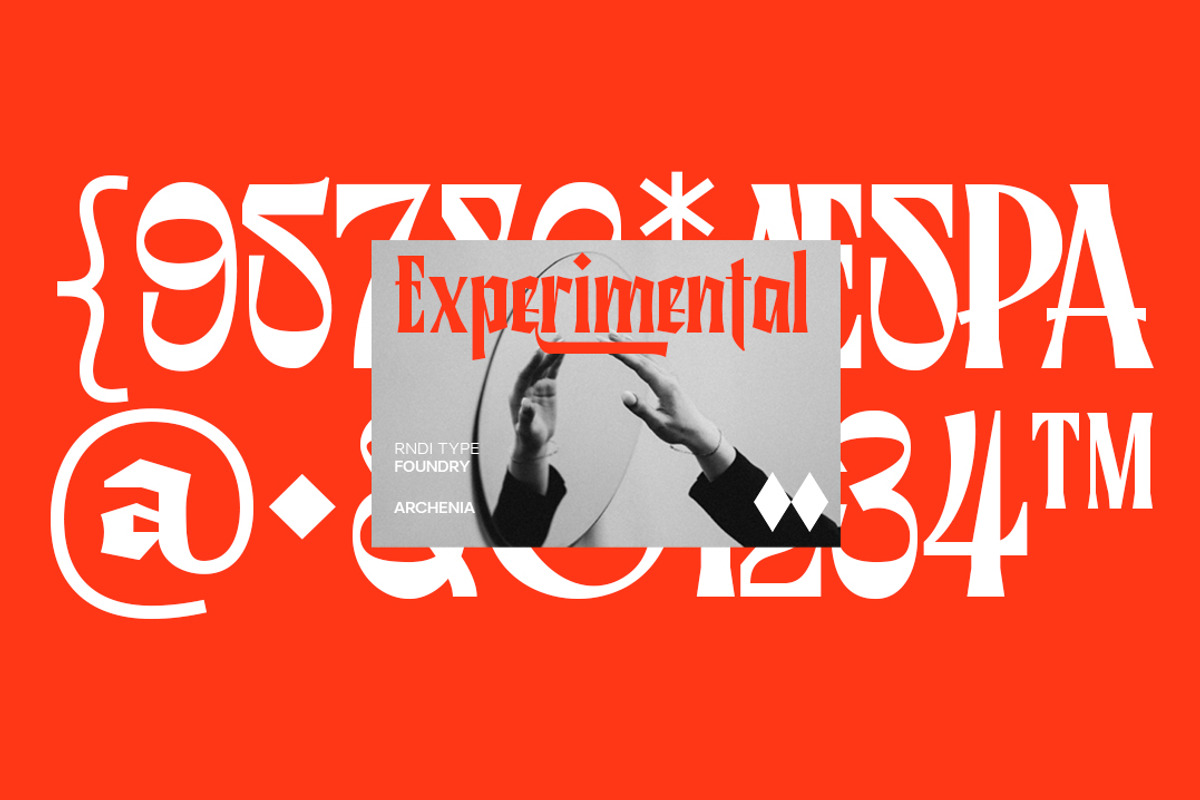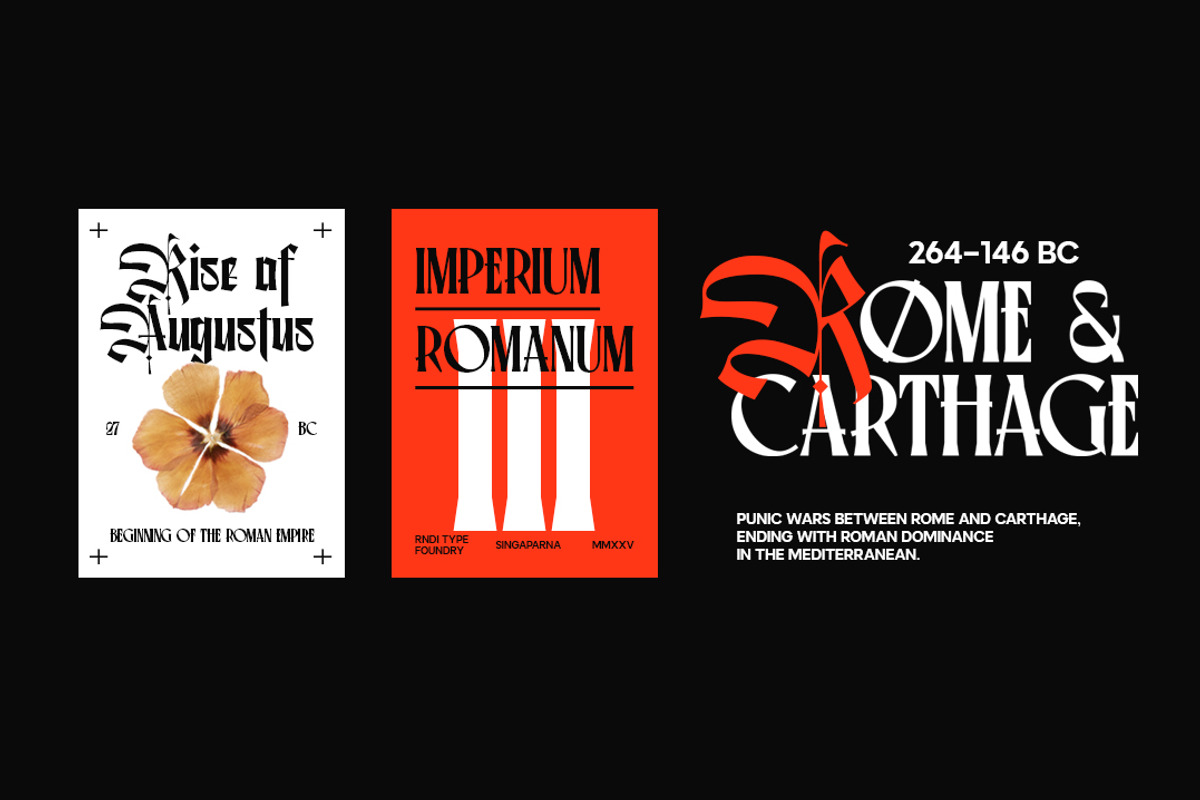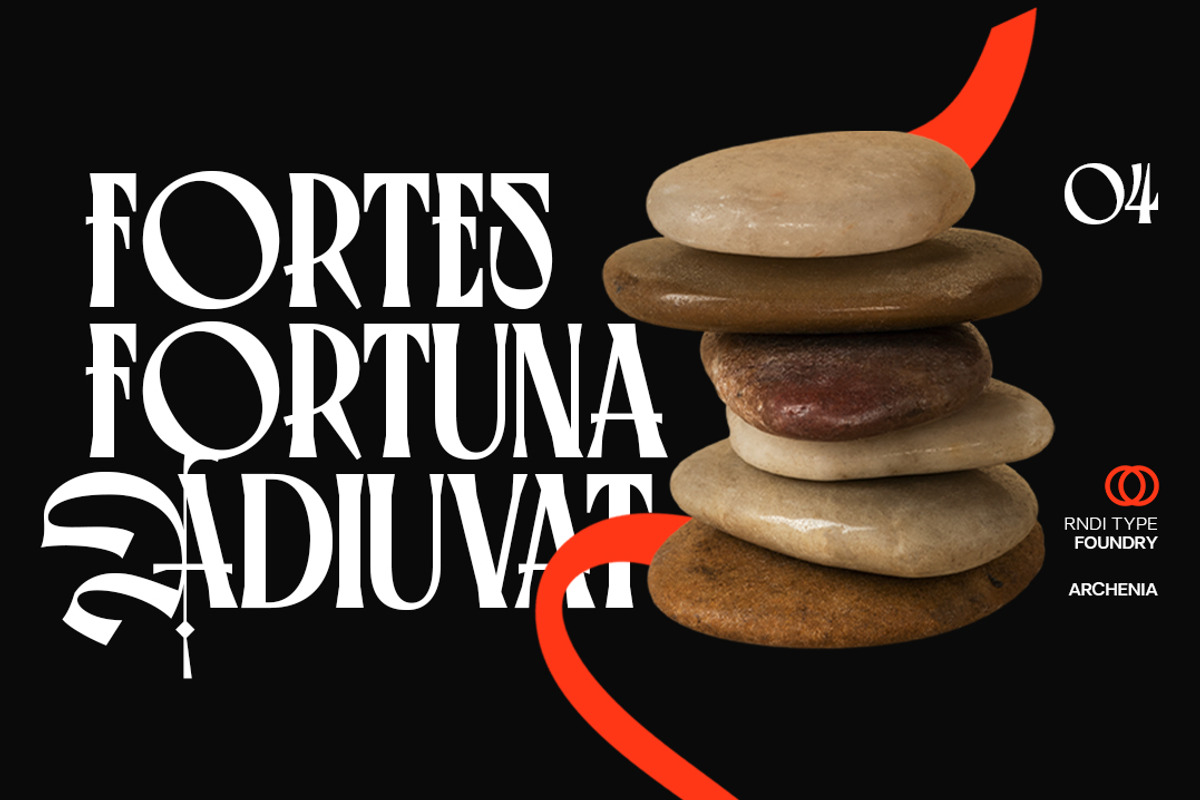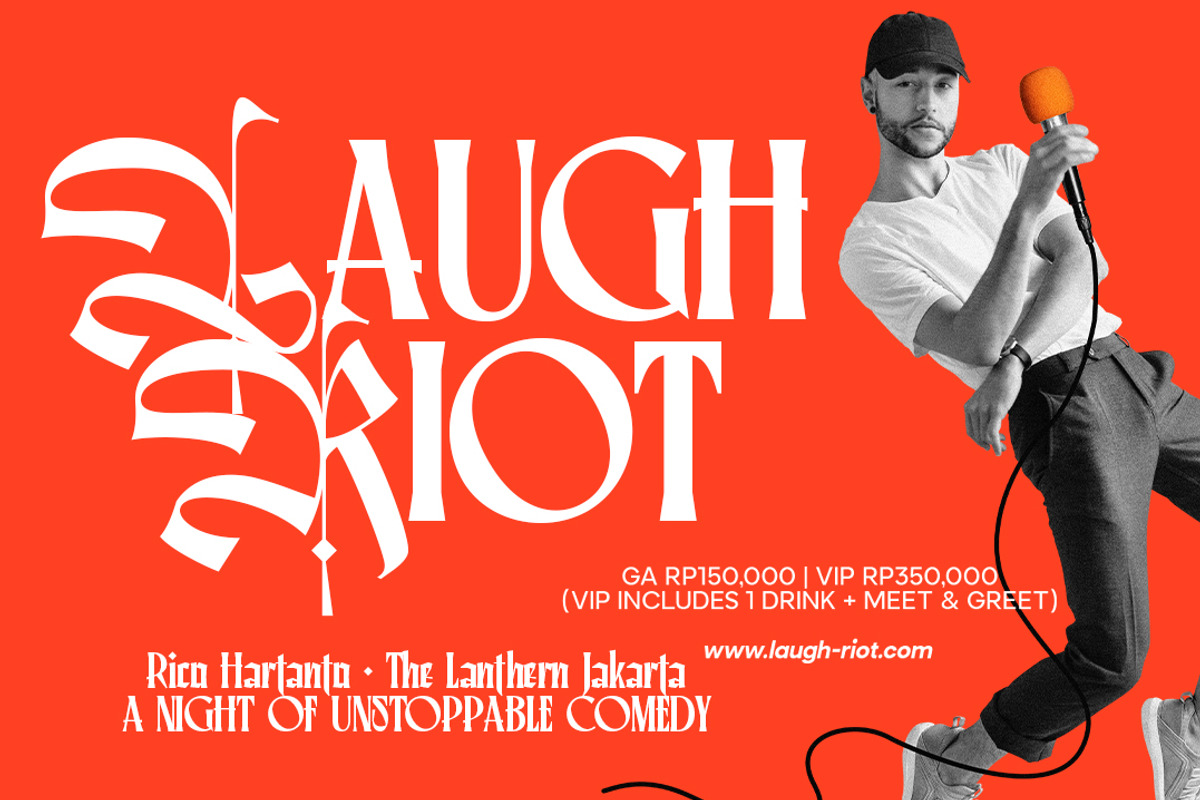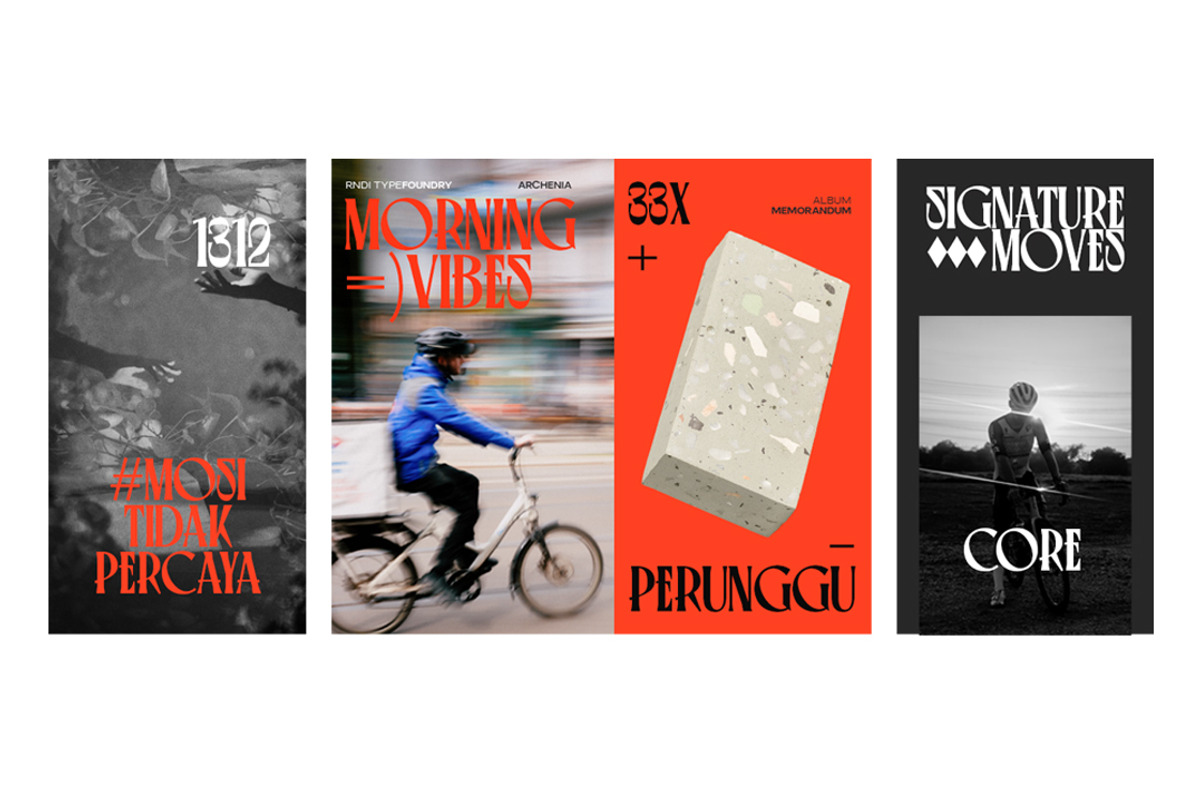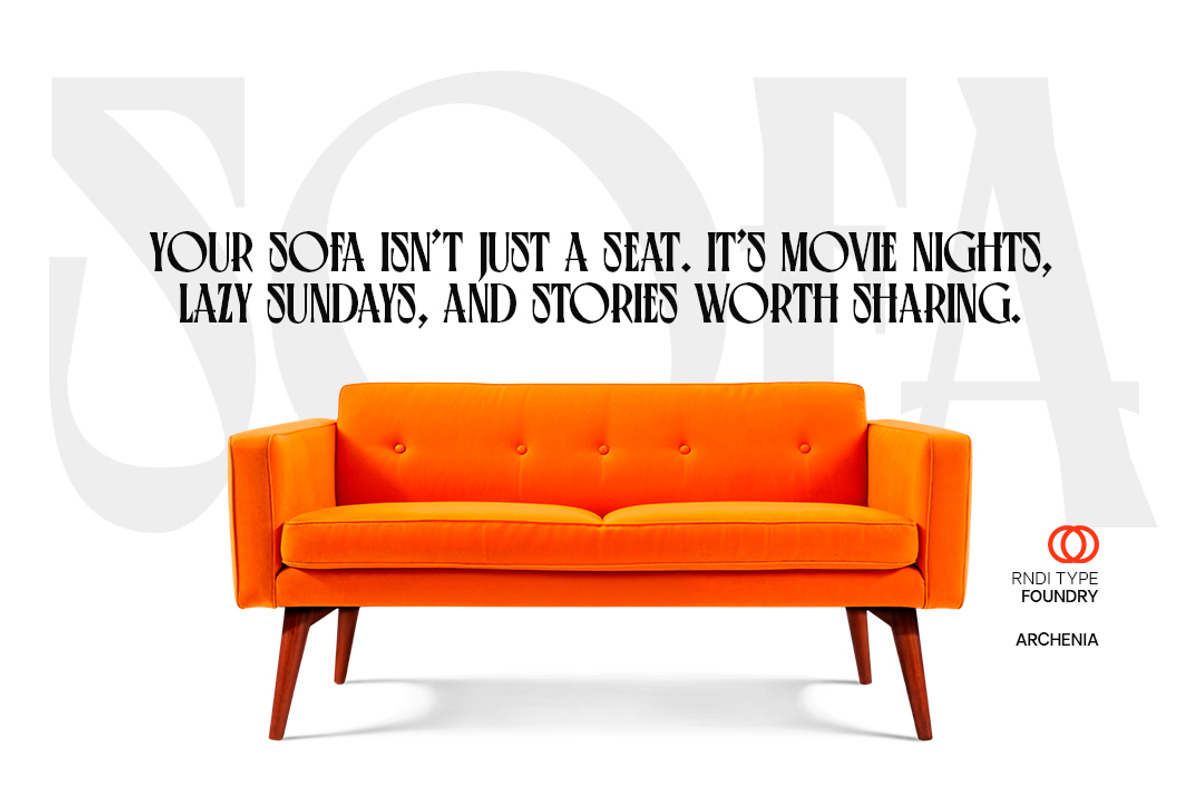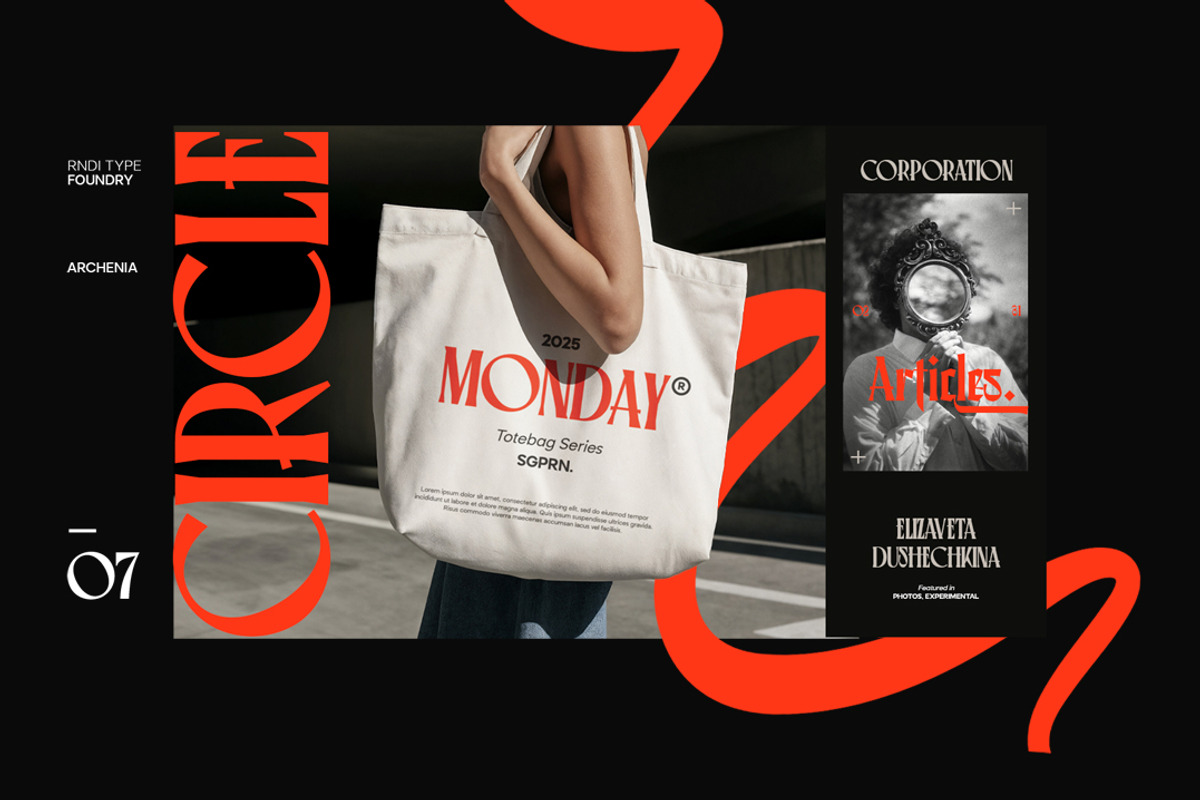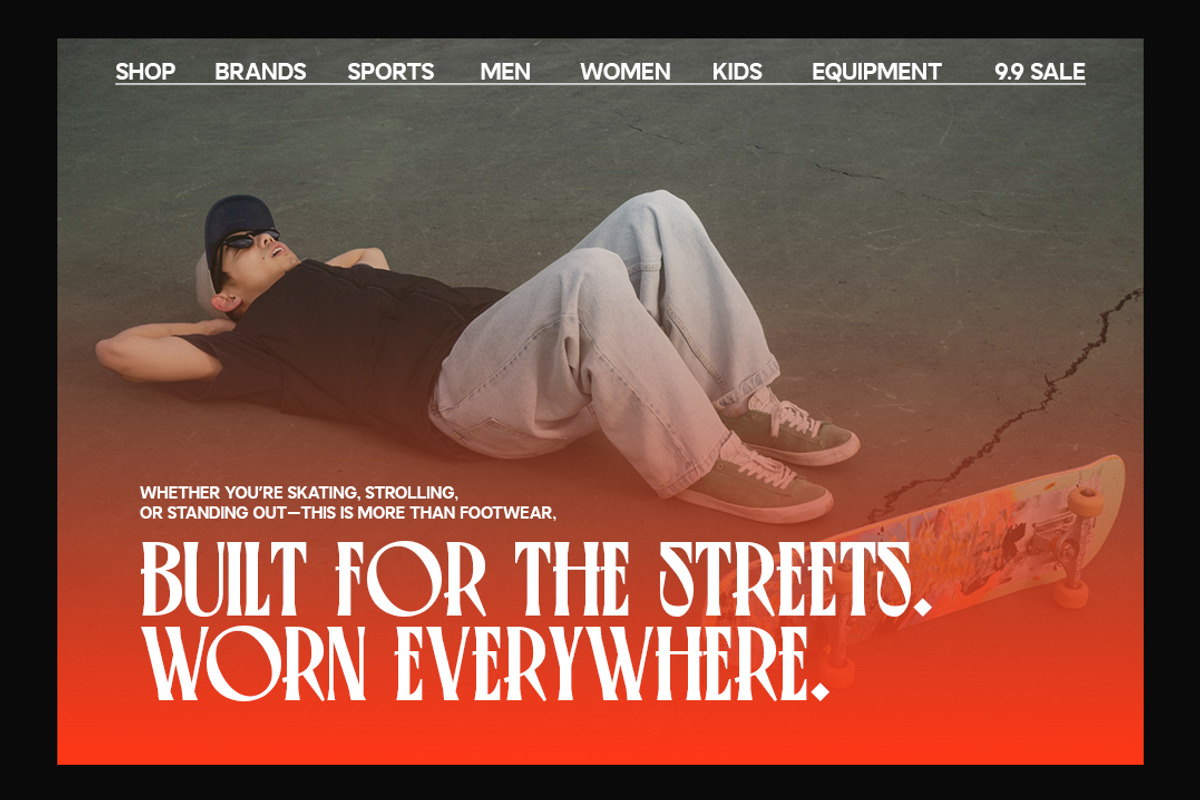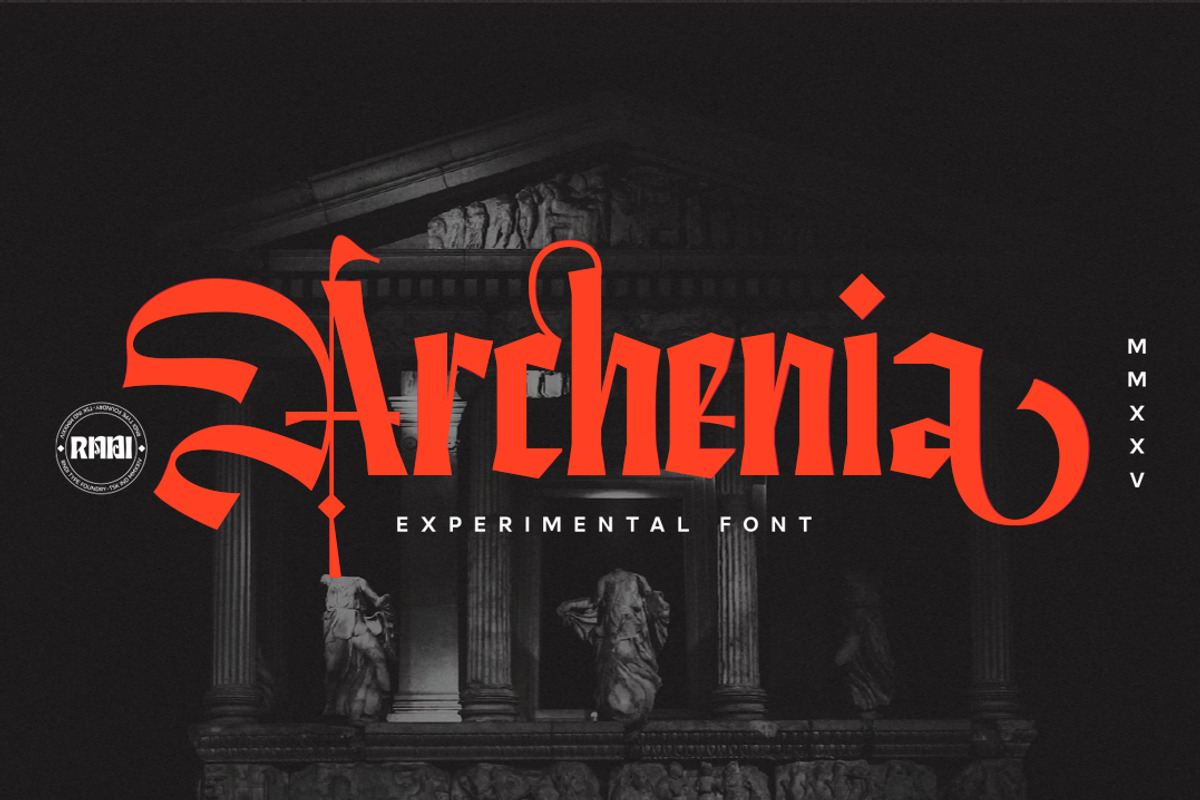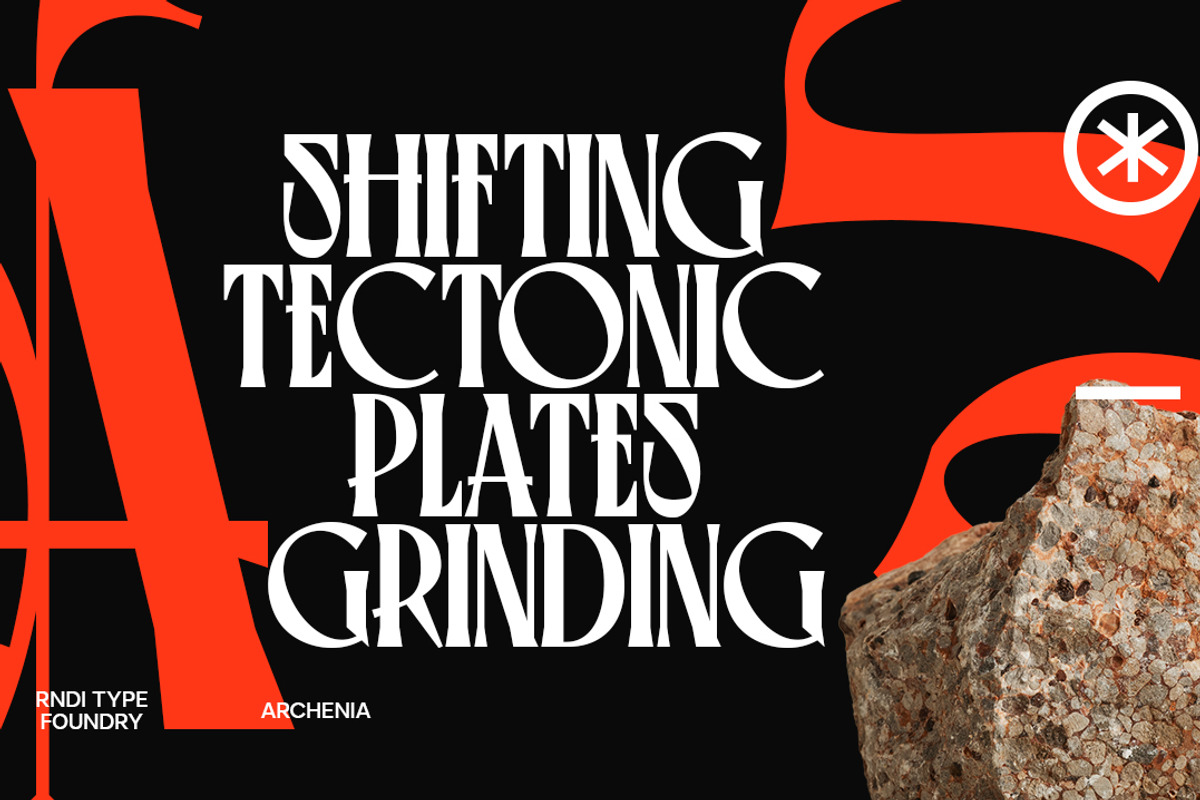
Archenia
Archenia is an experimental display font that fuses gothic sharpness with Roman elegance. Defined by bold contrasts, angular details, and sweeping curves, it captures both power and artistry. Perfect for posters, logos, fashion branding, or editorial design, Archenia blends historical grandeur with a modern edge, creating a dramatic visual impact that stands out across contemporary creative projects.